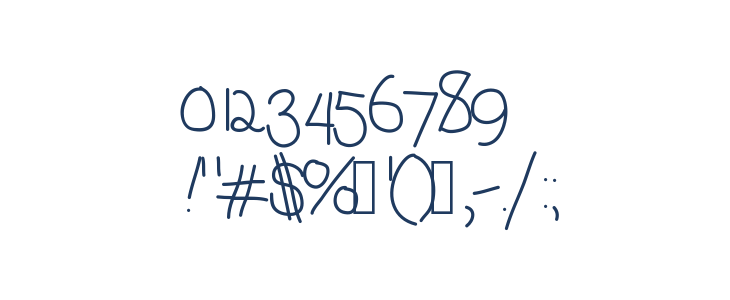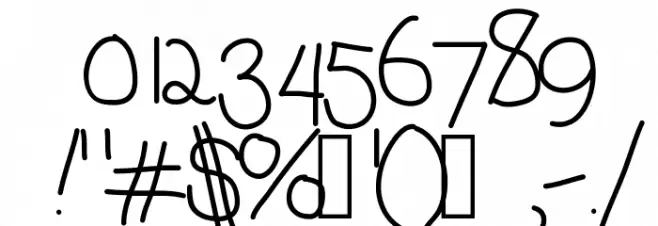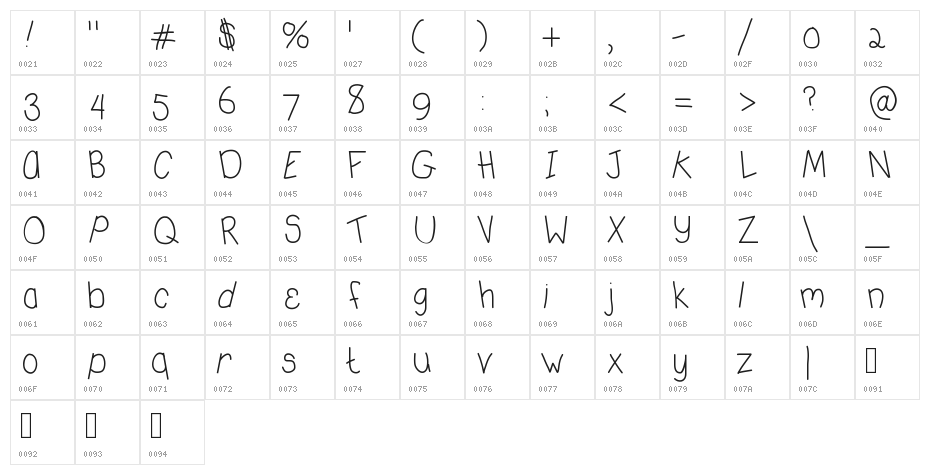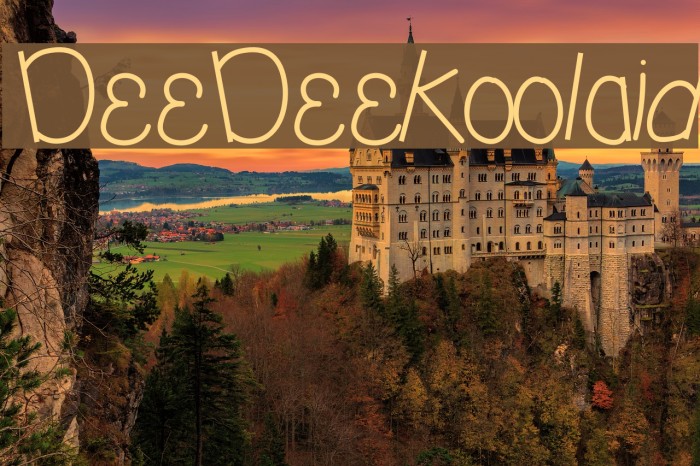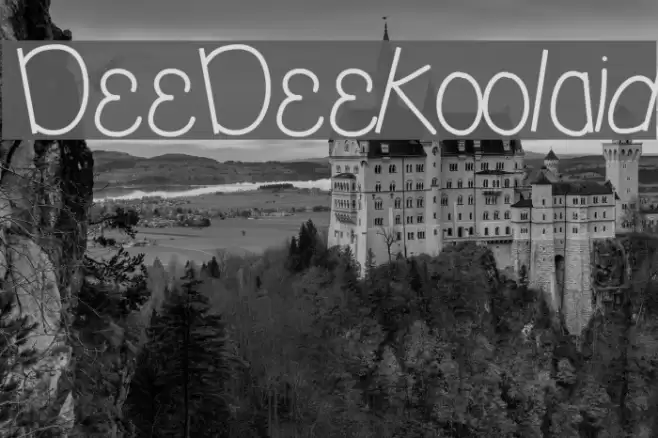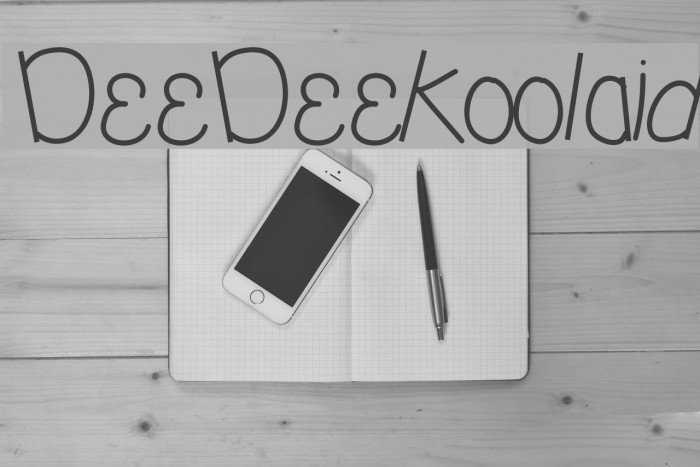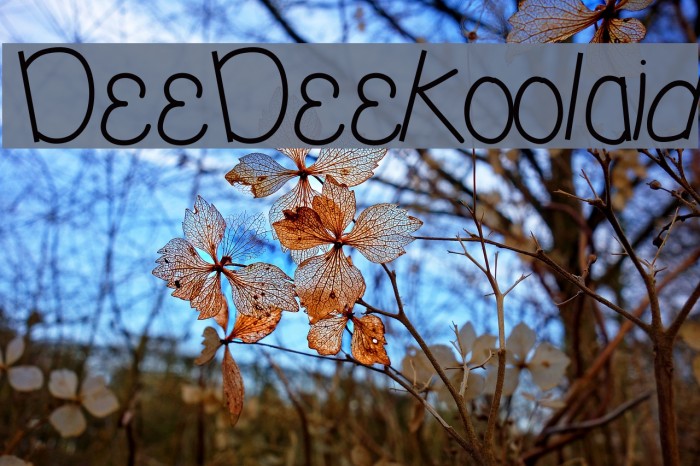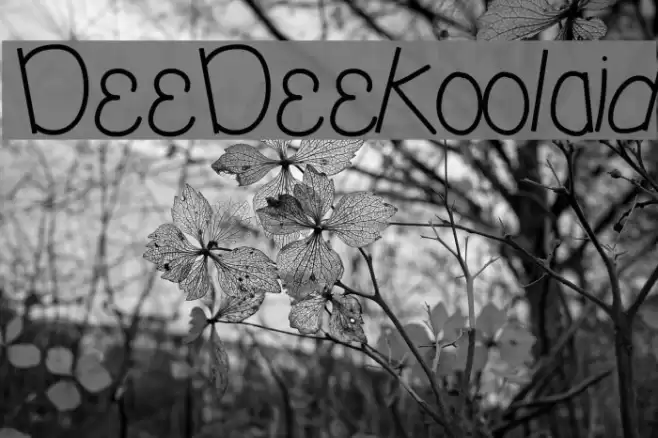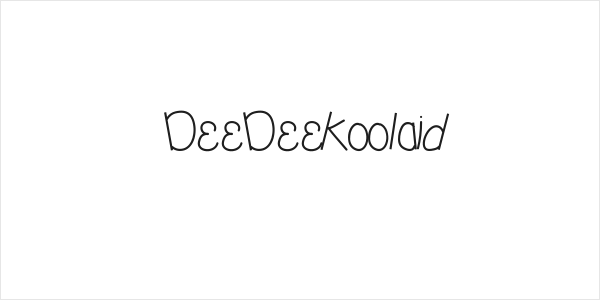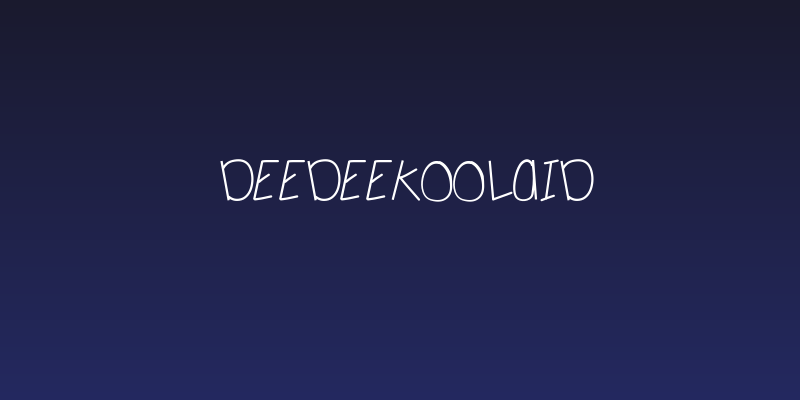
DeeDeeKoolaid Font
DeeDeeKoolaid Description
This playful and whimsical font features a handwritten style with a casual, informal appearance. The letters are slightly irregular, giving it a charming and approachable feel. Each character has a unique flair, with varying stroke widths that add to its dynamic and lively nature. The font maintains a consistent baseline, while the ascenders and descenders are elongated, enhancing its quirky personality. The numerals and special characters are designed with the same playful touch, making it suitable for creative and fun projects.
| Proposed Projects | Ideal for children's books, greeting cards, playful branding, and casual invitations. |